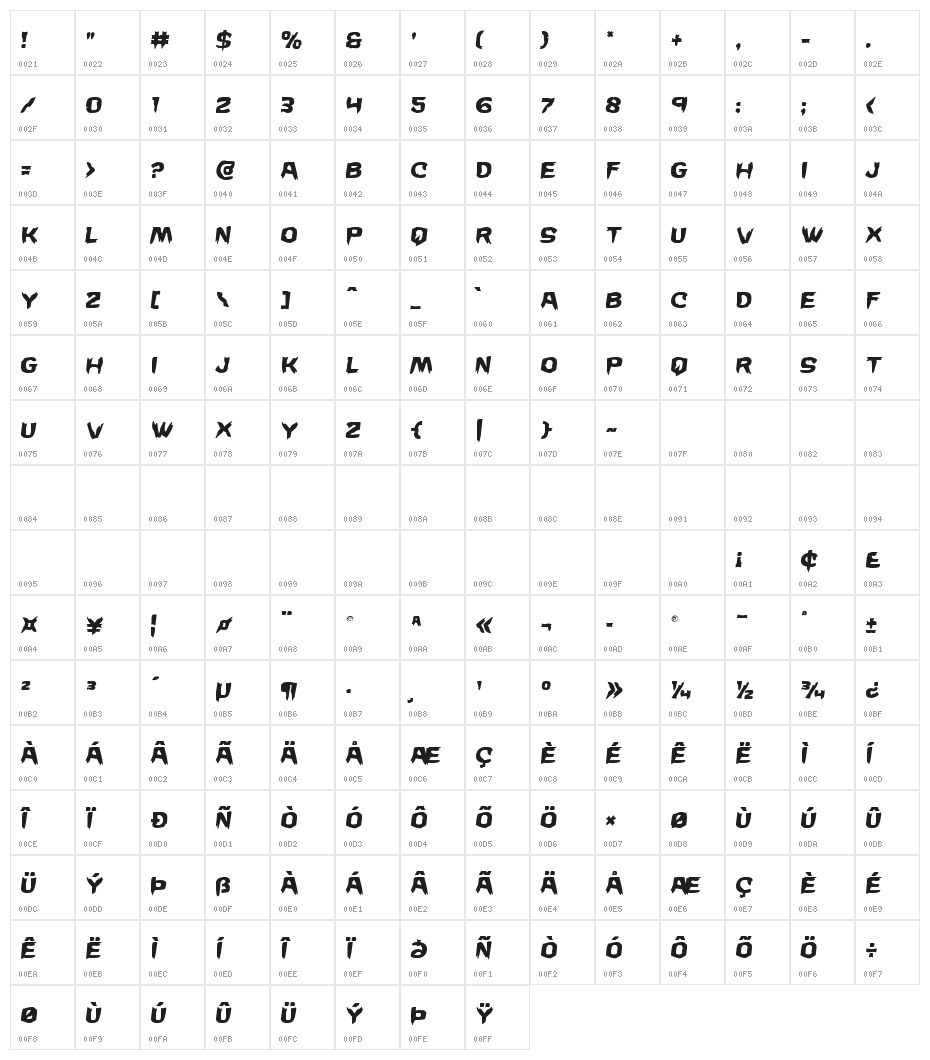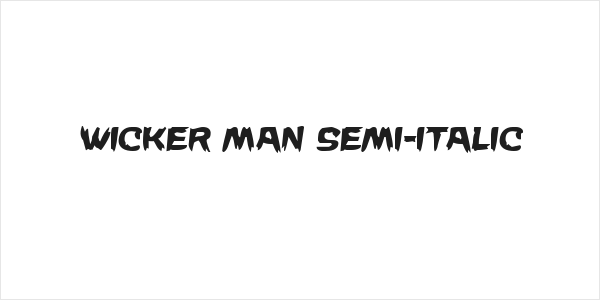
Wicker Man Semi-Italic Font
Wicker Man Semi-Italic Description
This font features a bold and dynamic style with sharp, jagged edges that give it an aggressive and energetic appearance. The characters are slightly italicized, adding a sense of motion and urgency. The uppercase and lowercase letters maintain a consistent design, with a unique flair that makes each character stand out. The numbers and special characters follow the same stylistic approach, ensuring uniformity across all glyphs. This font is ideal for projects that require a strong visual impact and a sense of edginess.
Proposed ProjectsPerfect for horror movie posters, edgy branding, music album covers, and event flyers.